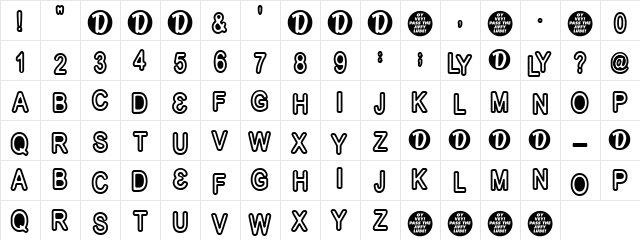
TunaFro Regular
Design Context for TunaFro Typeface
TunaFro takes a measured approach to typography — its balanced proportions and neutral character make it a reliable workhorse for both digital and print work.